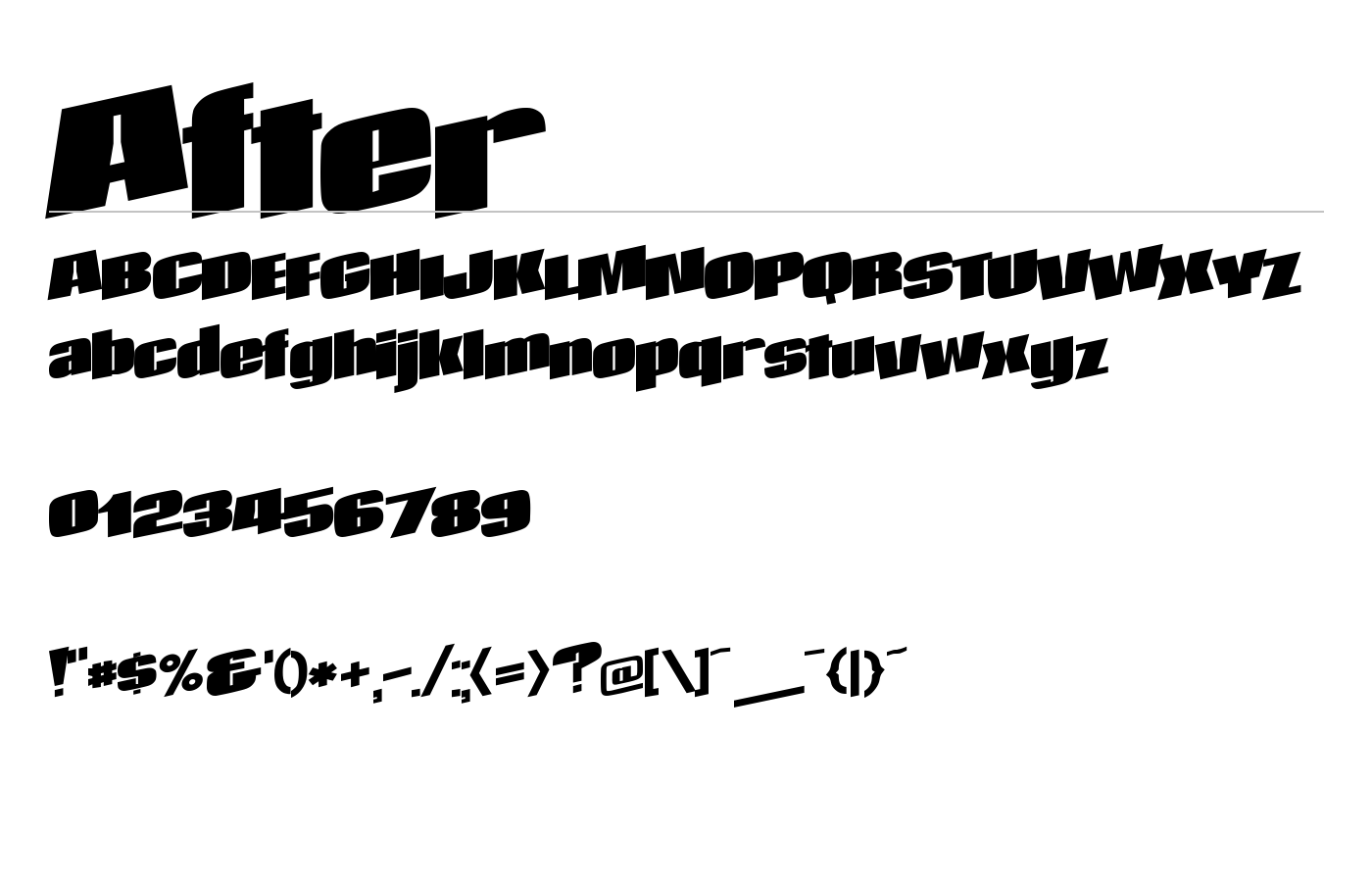
After ttnorm is a bold, condensed sans serif font with a dynamic slant that gives it a strong, energetic presence. Its heavy weight and tight spacing make it perfect for impactful headlines and branding that seeks a modern, edgy vibe. This font stands out with its slightly irregular shapes and angled letterforms, making it ideal for posters, logos, and designs that want to convey confidence and boldness.
After ttnorm Font
About After ttnorm Font